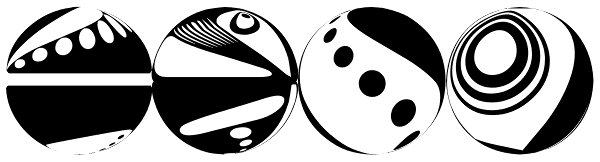
Deco Glyphs
Teardrop, circular, square and triangular shaped embellishments are great accent dingbats where a whimsical art deco look is needed. DecoGlyphs contain five different fonts: Orbs, Spheres, Droplets, Triangles and Squares for a total of 360...
Triangles
Squares
Spheres
Orbs
Droplets